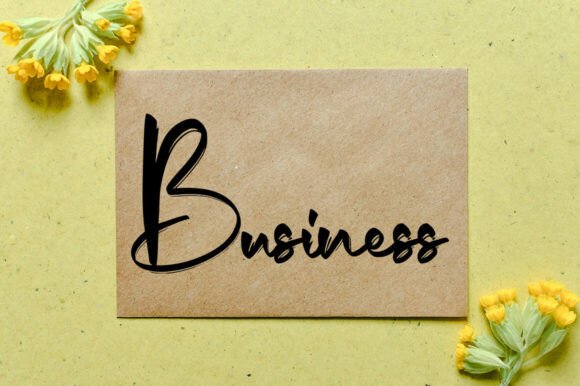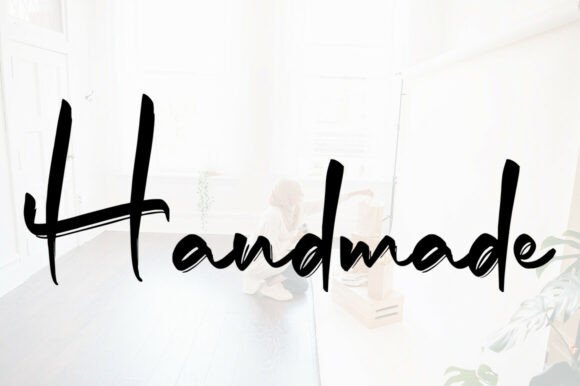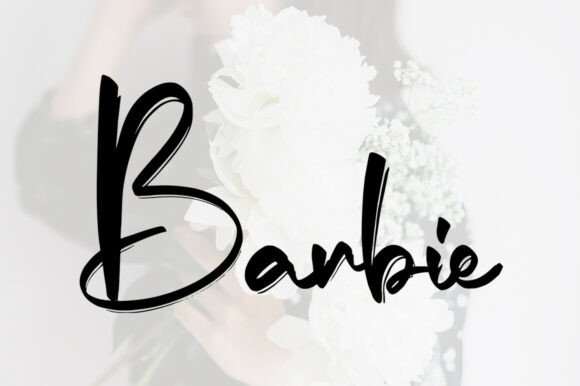
Introduction to Camelian Font
Camelian is a dainty and flowing handwritten font.
Sweet and joyful, this font will be ideal for writing wedding invitations, cards or any other design that may need a romantic, personalized touch .